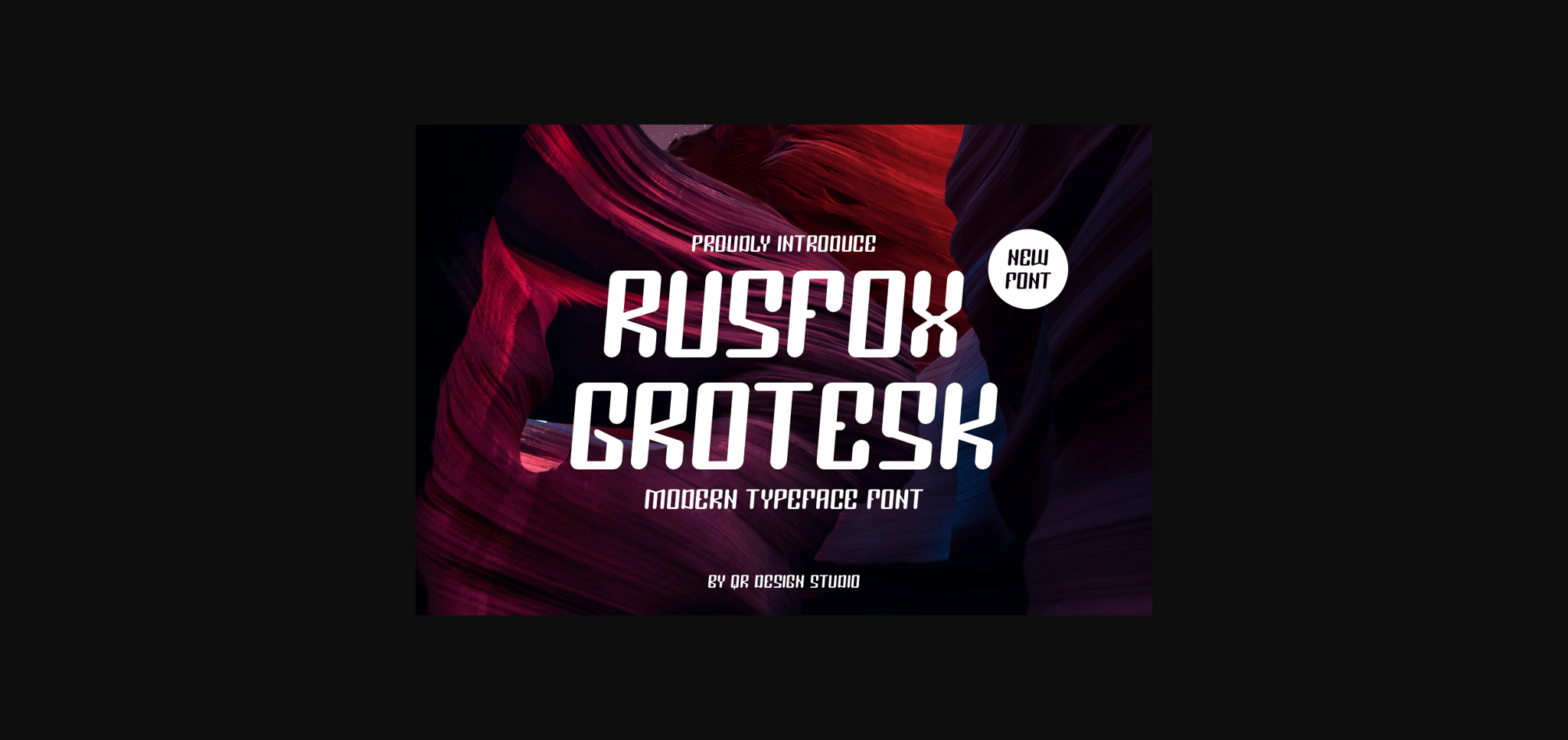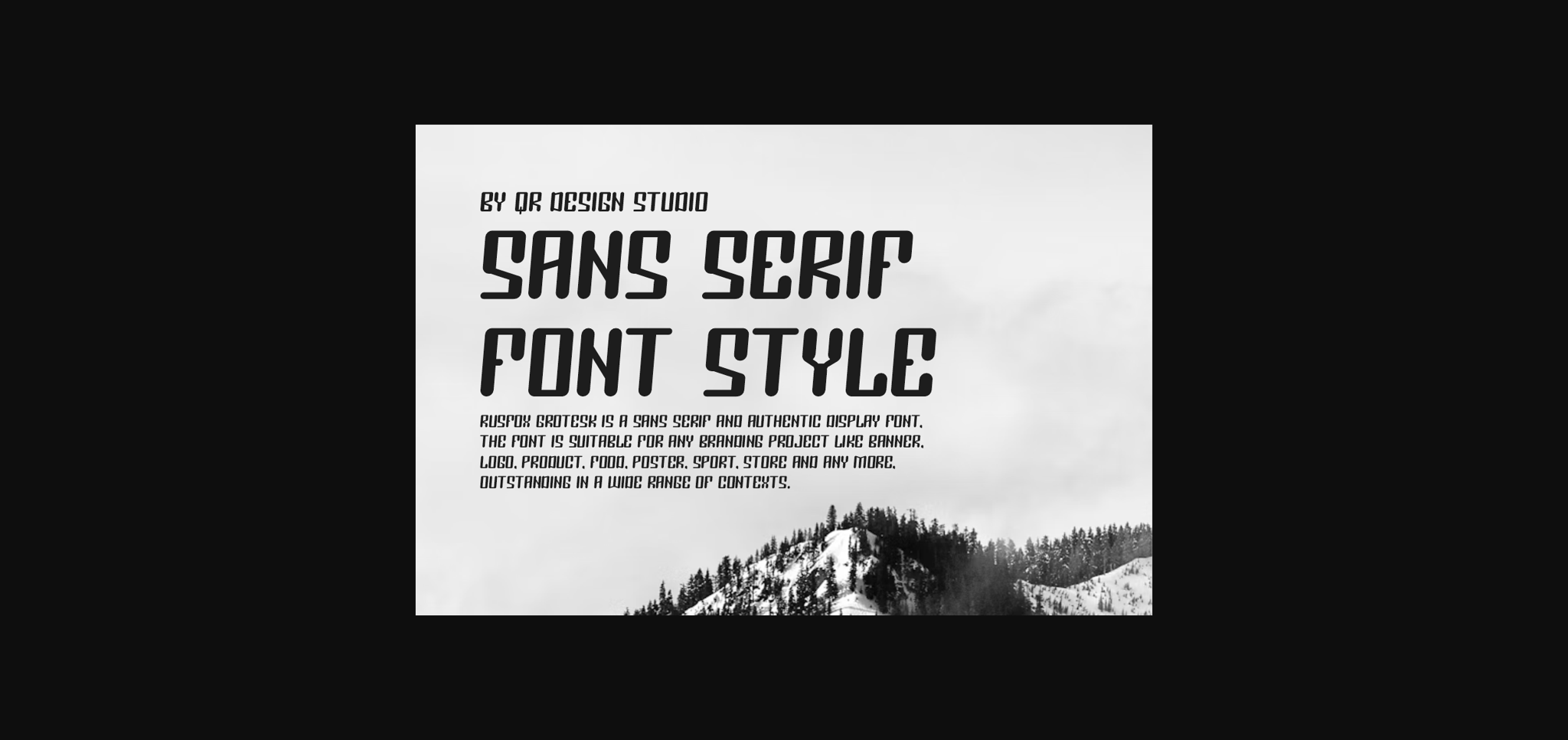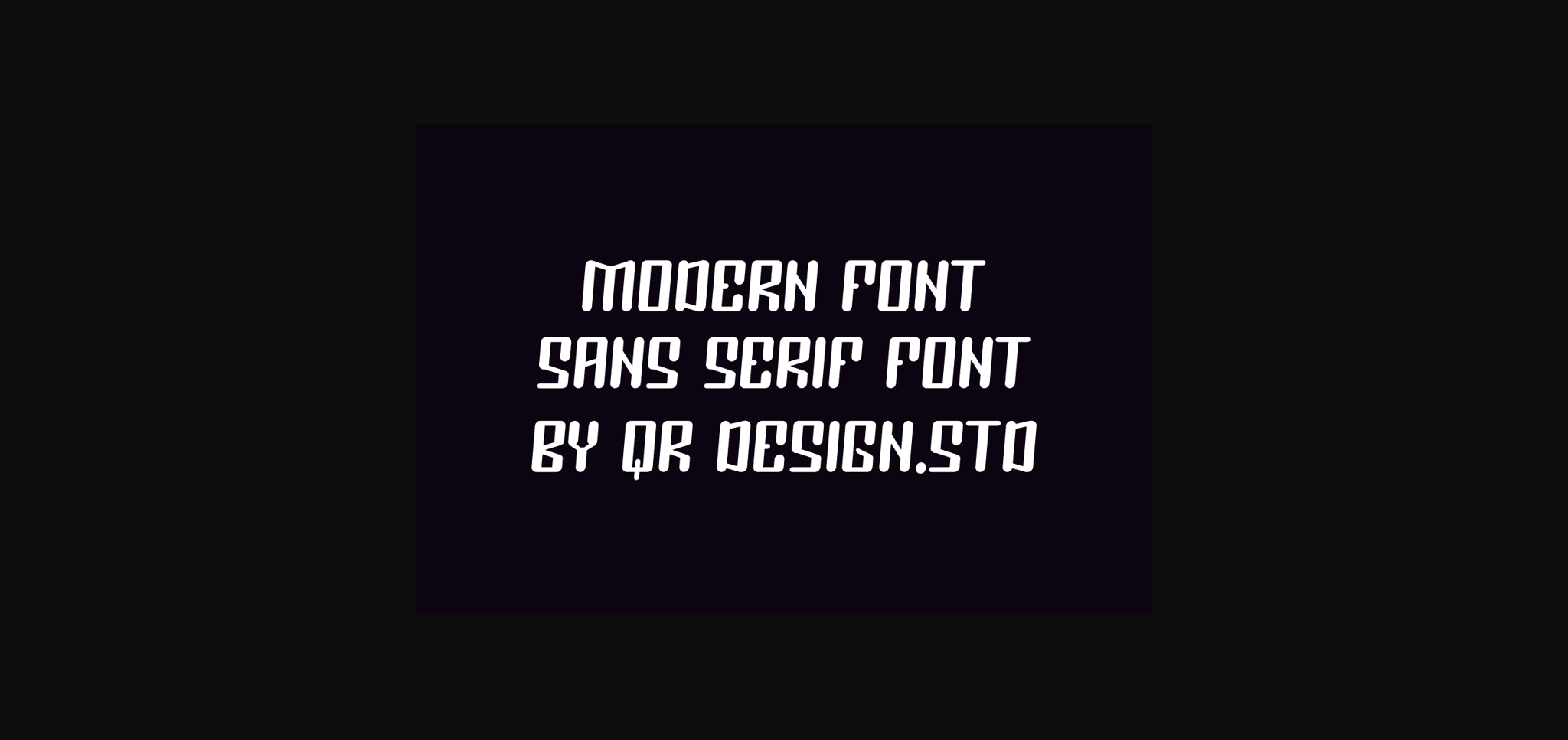
About Rusfox Grotesk Font
Rusfox Grotesk is a sleek and contemporary sans-serif font, embodying modernity and sophistication. Its clean lines and balanced proportions make it versatile for a range of design projects, from branding to editorial layouts. With a cool demeanor, Rusfox Grotesk adds a touch of refinement to any visual composition.